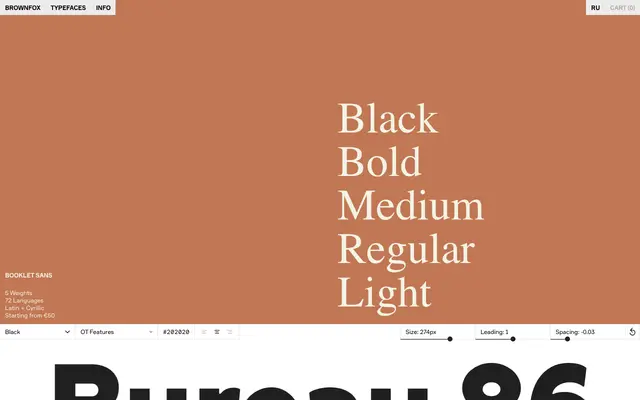
Booklet Sans
Brownfox · Nikita Sapozhkov
A five-weight humanist sans from Brownfox covering Latin and Cyrillic across 72 languages, suited to text-heavy editorial and interface work.
Designed by Nikita Sapozhkov at Brownfox, Booklet Sans runs from Light to Black across five weights with no italics. The family covers 72 languages across Latin and Cyrillic scripts, making it a practical choice for multilingual publishing and digital products. Its even spacing and readable proportions point toward sustained text use rather than display applications.
The specimen text and even spacing suggest a text-oriented humanist sans; the design's compatibility with both Latin and Cyrillic scripts and its range of weights reinforce this classification.